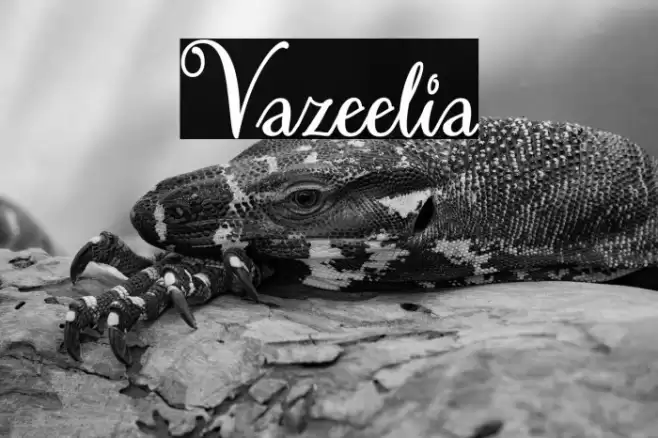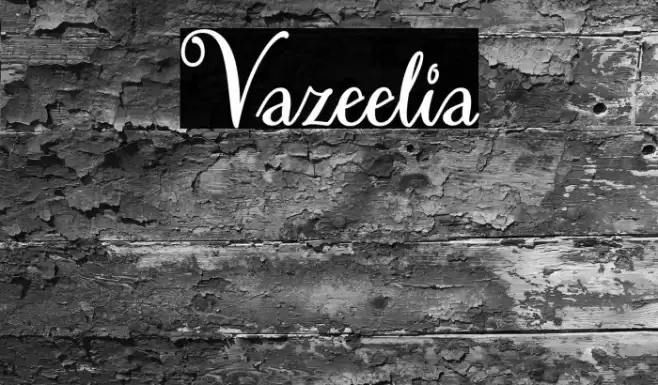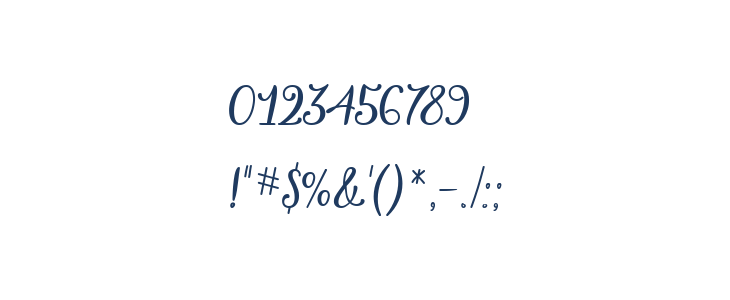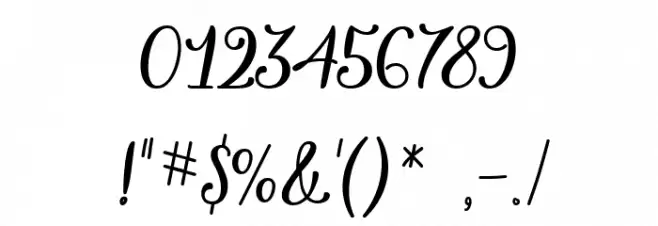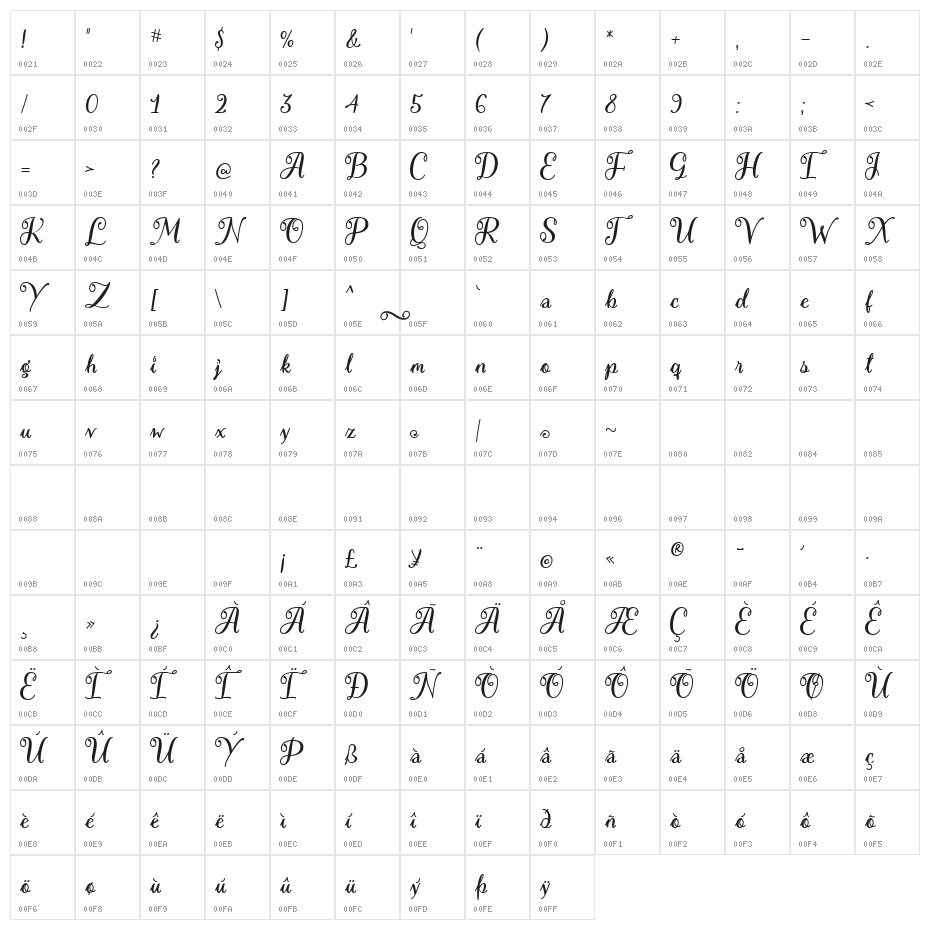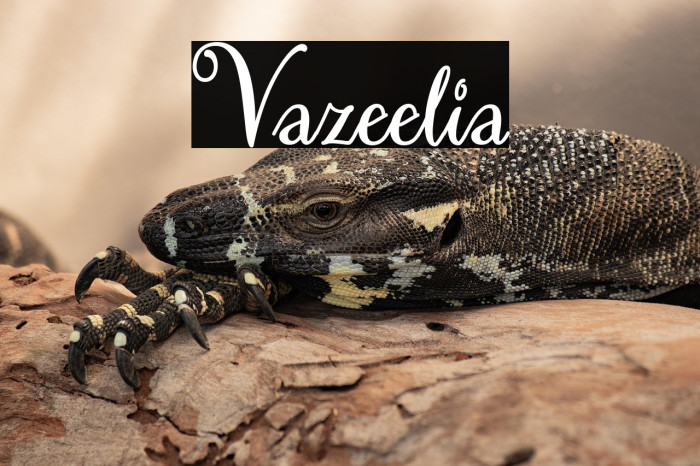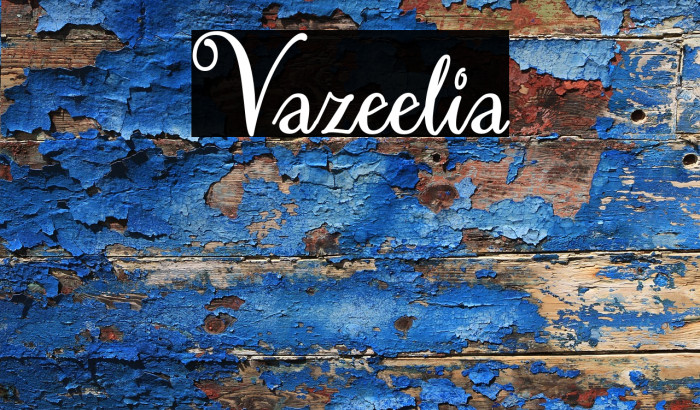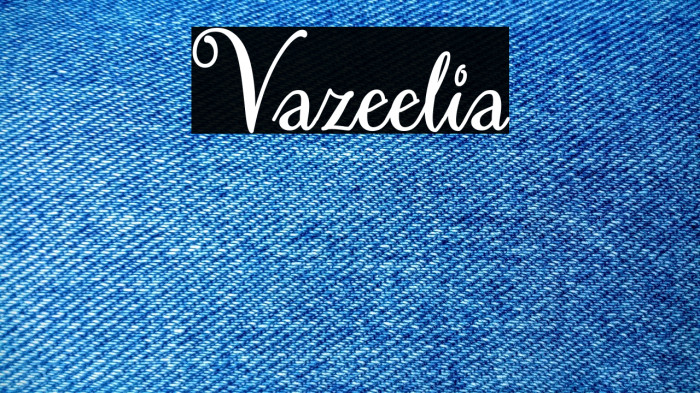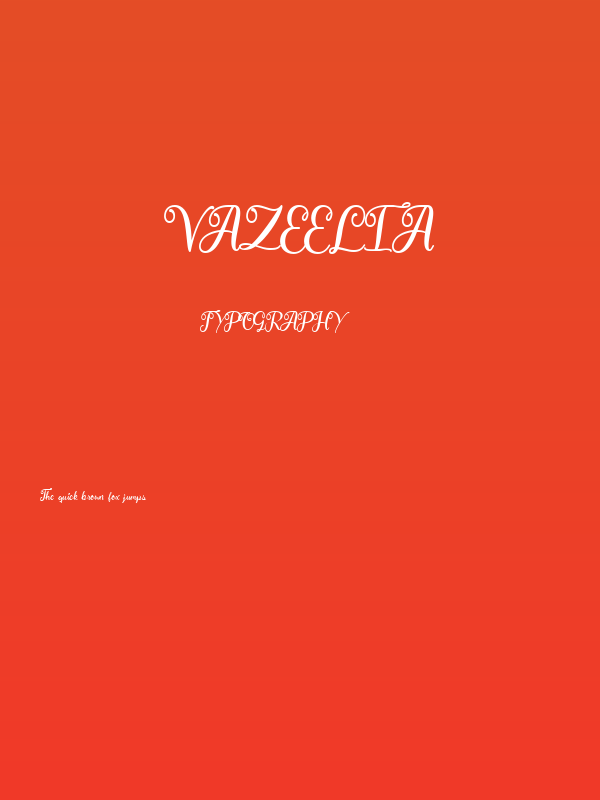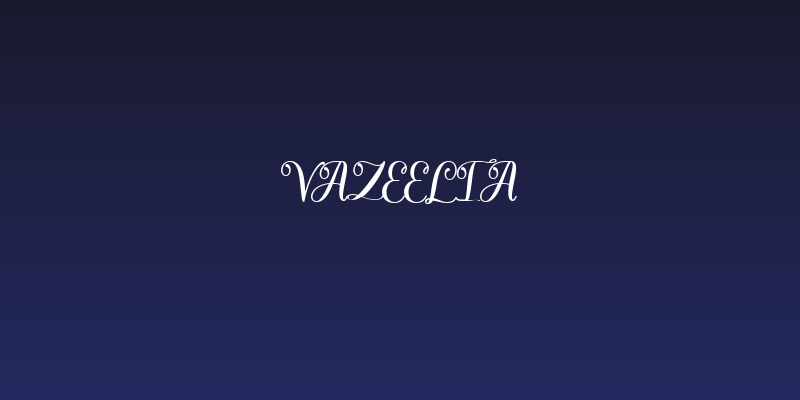
Vazeelia Font
Vazeelia Description
This font features an elegant and decorative script style with a flowing, cursive design. The uppercase letters are adorned with intricate loops and flourishes, giving them a sophisticated and ornate appearance. The lowercase letters maintain a smooth and connected script form, enhancing readability while retaining a stylish flair. Numbers and special characters are crafted with the same attention to detail, ensuring consistency across all glyphs. The overall aesthetic is both classic and modern, making it suitable for a variety of creative applications.
An elegant, decorative script font with intricate loops and flourishes from Uncategorized fonts.
- Proposed Projects: Ideal for wedding invitations, luxury branding, greeting cards, and elegant packaging designs.
- Use Case: Logos, Invitations, Decorative text